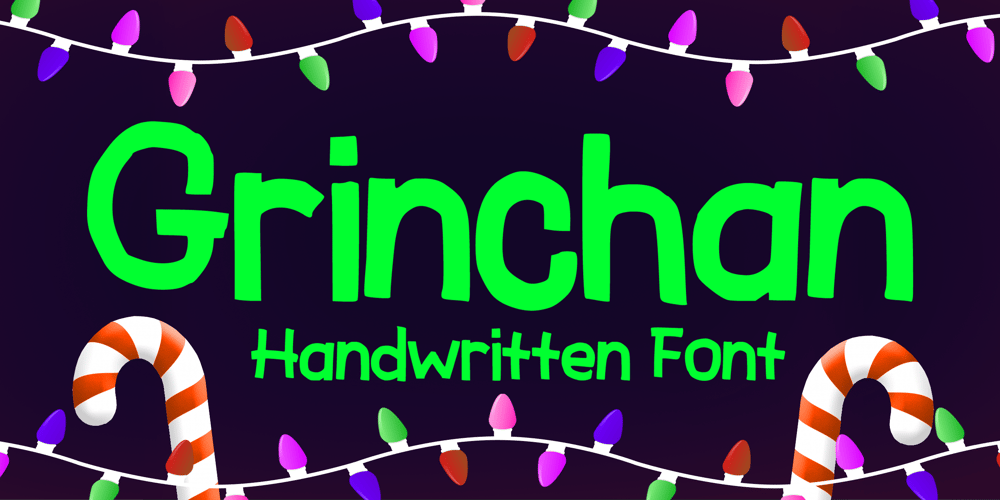
Grinchan Font Family was designed by Gabriel Valentinus and published by Mvmet. Grinchan contains 1 styles and family package options. Grinchan is a fun to use Halloween and Christmas font. You can use it for anything ranging from t-shirts, kids’ book designs, and greeting cards to stickers and posters, or anything that needs a casual touch. Fall in love with its incredibly versatile style, and use it to create lovely designs!